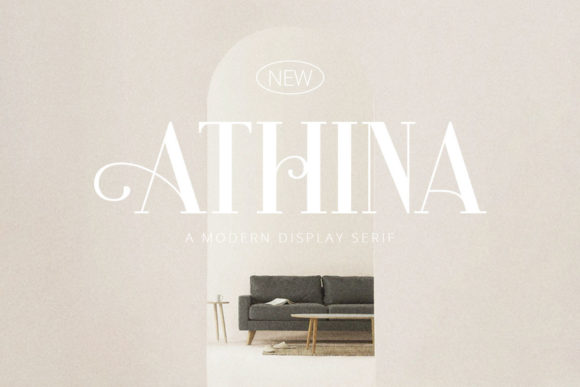
The Elegant Assertiveness of Athina Font: A Designer’s Delight
I still remember the time I was working on a wedding invitation project, and my client asked for a font that exuded elegance and sophistication. I scoured the internet, tried out countless fonts, but none seemed to fit the bill. That was until I stumbled upon Athina Font. ✨
Athina is an elegant and assertive serif font that has a classy look, perfect for logos, branding, invitations, stationery, wedding designs, social media posts, and much more! In this article, I’ll share my experience with Athina Font, its features, and how to make the most of it in your designs.
An Honest Review of Athina Font
What I Love About Athina Font
- ✨ Elegant and assertive serif design that adds a touch of sophistication to any project
- 💫 Perfect for a variety of design projects, from logos and branding to invitations and social media posts
- 🔍 Highly legible, even at small font sizes
While Athina Font is an excellent choice for many design projects, there are a few things to keep in mind: 🤔
- ⚠️ Some users may find the font a bit too ornate for certain projects, such as body text or long-form content
- ⚠️ May not be the best choice for very small font sizes, as some details may get lost
The Backstory of Athina Font
Athina Font was designed with elegance and sophistication in mind. Its creator drew inspiration from classic serif fonts, with a modern twist. The result is a font that’s both timeless and trendy. 💫
Q: Is Athina Font suitable for body text and long-form content?
A: While Athina Font is highly legible, it may not be the best choice for body text and long-form content due to its ornate design.